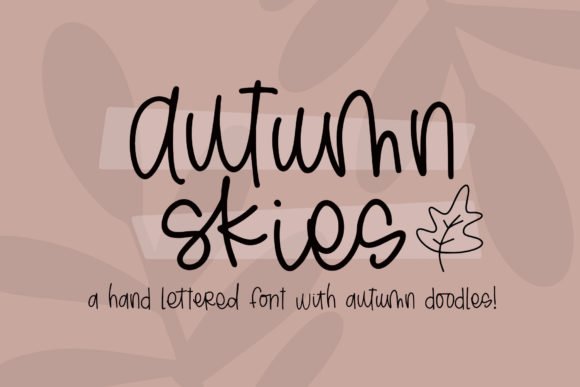
Introduction to Autumn Skies Font
Autumn Skies is a whimsical script font with a relaxed theme, featuring a lovely style.
No matter the topic, this font will be an incredibly asset to your fonts’ library, as it has the potential to elevate any creation .
Key Features of Autumn Skies Font
Why Choose Autumn Skies Font?
Autumn Skies Font offers exceptional quality and versatility, making it a valuable addition to your design toolkit. Whether you’re creating for personal projects or commercial use, Autumn Skies Font delivers professional results.